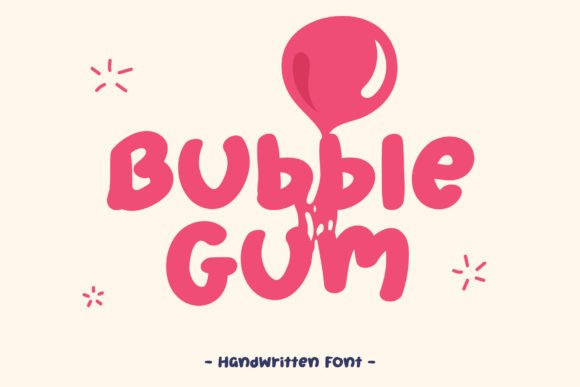
Sticking to Your Creativity: The Joy of Bubble Gum Font
Who hasn’t had that moment when you’re brainstorming ideas, and a spark of inspiration hits you? Maybe it’s the perfect phrase for a social media post, or the title for your next art project. Whatever it is, it’s that feeling of excitement and possibility that keeps us coming back to our creative pursuits. And for designers, the right font can be the key to unlocking that magic.
Enter the Bubble Gum Font – a playful, handwritten font that’s as friendly as it is versatile. Whether you’re crafting a Instagram-worthy graphic or designing a custom invitation, this font is sure to add a touch of whimsy and charm. With its casual, approachable feel, the Bubble Gum Font is the perfect tool for designers looking to add a little extra personality to their work.
Bubble Gum Font Key Features
- Unique Characteristics: This playful, cursive font features a bubbly, rounded design with irregular letterforms and a whimsical feel.
Bubble Gum Font Review
Overall, I think the Bubble Gum Font is a cute and playful addition to any design project. ✨ The rounded edges and bubbly feel immediately evoke a sense of fun and lightheartedness. It’s perfect for kid’s menus, children’s books, or any other project that requires a whimsical touch.
One of the strengths of the font is its versatility. It comes in a range of weights, from light to bold, allowing designers to easily create a cohesive look across multiple elements. Additionally, the font is fully customizable, making it easy to tweak the design to fit your specific needs. ✨
However, there are a few limitations to be aware of. ⚠️ The font may not be the best choice for projects that require a more serious or professional tone. The bubbly feel can come across as immature or childish in some contexts. Additionally, the font may not be suitable for very large or small text sizes, as the rounded edges can become distorted.
Here are some specific strengths and limitations:
- Strengths:
- Cute and playful design
- Comes in a range of weights
- Limitations:
- May not be suitable for serious or professional projects
- Can be distorted at very large or small text sizes
Bubble Gum Font Practical Application Guide
The Bubble Gum Font is perfect for:
- Food and beverage branding (e.g. candy, ice cream)
- Summer-themed graphics and designs
To get the most out of the Bubble Gum Font, try:
- Using it in combination with bright, bold colors
- Adding fun, playful graphics and illustrations
- Experimenting with different font sizes and alignments
Alternatives to Bubble Gum Font
Cookie Sans
Cookie Sans is a fun, playful font that is perfect for creating a lighthearted and whimsical atmosphere. It is ideal for use in children’s products, entertainment, and food packaging. Cookie Sans has a similar rounded and childlike feel to Bubble Gum Font, but with a more uniform and refined look.
Playfair Display is a luxurious and elegant script font that is suitable for high-end branding, advertising, and packaging. While it lacks the playful feel of Bubble Gum Font, it shares a similar level of sophistication and refinement. Playfair Display is a good choice for designers looking for a more mature and sophisticated alternative.
Great Vibes is a modern and trendy script font that is perfect for creating a fun and youthful atmosphere. It is ideal for use in social media, advertising, and entertainment branding. Great Vibes has a similar level of playfulness to Bubble Gum Font, but with a more modern and edgy feel.
Lobster is a bold and eye-catching script font that is suitable for creating a fun and energetic atmosphere. It is ideal for use in advertising, packaging, and branding. Lobster has a similar level of boldness to Bubble Gum Font, but with a more dramatic and attention-grabbing feel.
Q: Is Bubble Gum Font available in different weights and styles?
Yes, Bubble Gum Font comes in several weights and styles, including light, regular, bold, and italic. This allows designers to create a range of visual effects and moods, from playful and casual to bold and attention-grabbing. The font also includes ligatures and swashes for added creativity and flair.